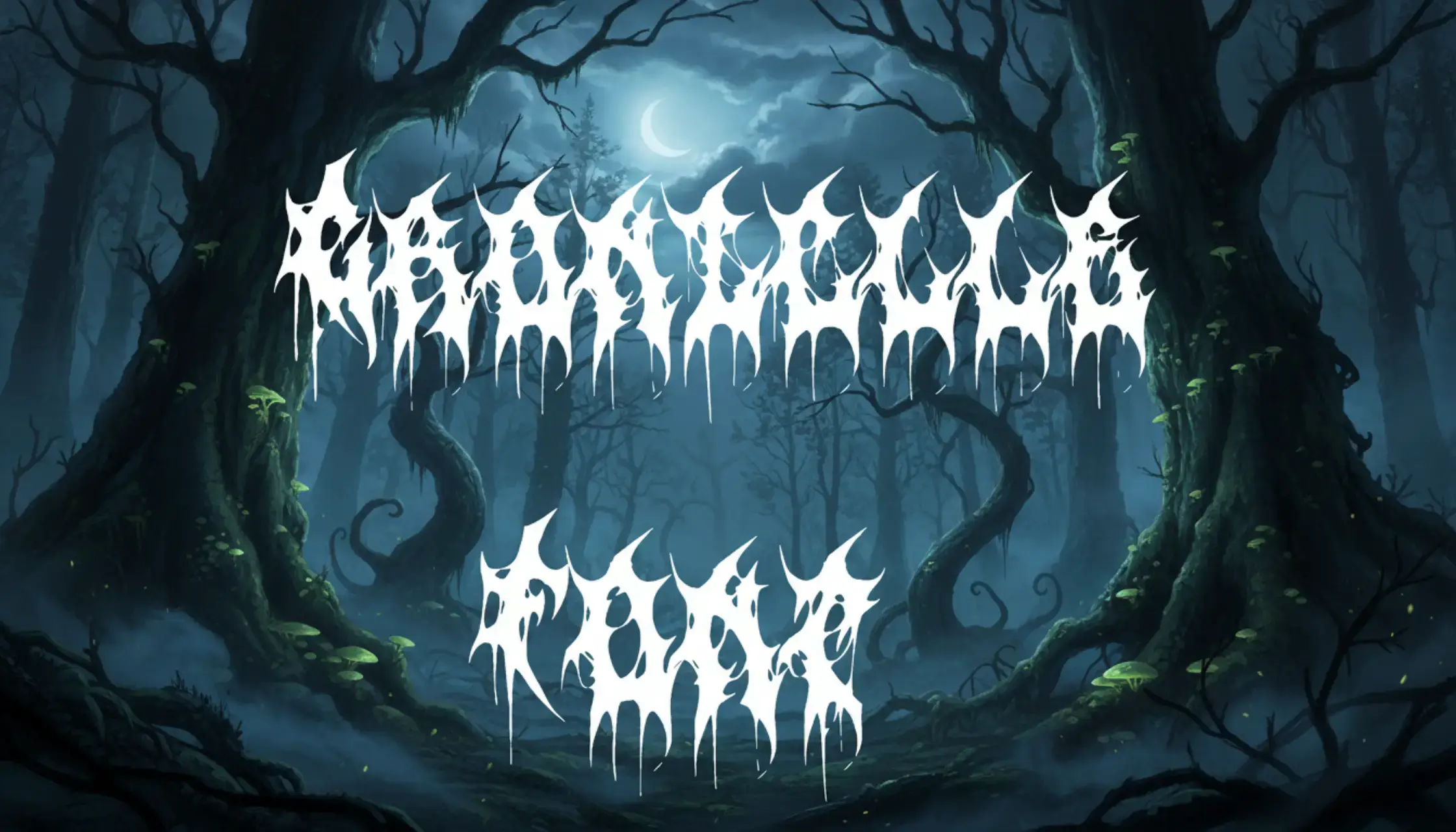
Cronicle Font
Cronicle is a gothic font created by GlyphStyle. Its pointed, heavy strokes give it a dark, dramatic blackletter look. You can download it for free and test it with your own words in the preview above.
- Designer: GlyphStyle
What You Can Type With Cronicle
Cronicle covers the full alphabet in upper and lowercase, plus all ten numbers, so you can set names, dates and prices without switching fonts. Everyday marks like &, !, ? and @ are there too. Thanks to its accented letters, it also works for Spanish, French, Portuguese and Italian, not just English.
Where Cronicle Works Best
Designers usually reach for fonts like Cronicle when they're making tattoos, metal band logos and dark fantasy titles. Blackletter is very hard to read in all caps, so type in normal upper and lowercase.
Does Cronicle support accented letters?
Yes. Cronicle includes the accented letters needed for Spanish, French, Portuguese and Italian, so it works for more than just English.